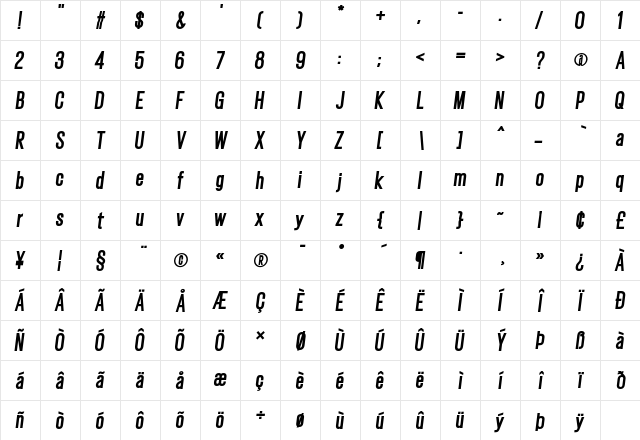
Gatty Extra Bold Italic
| Foundry | Matt Chansky |
| Designer | Matt Chansky |
Design Context for Gatty Typeface
Gatty takes a measured approach to typography — its balanced proportions and neutral character make it a reliable workhorse for both digital and print work. The dynamic lean of this cut emphasises speed and emphasis in any layout. Its bold stroke weight gives it real presence on the page.
Pro Tip: Try Gatty for annotation and caption copy alongside an upright companion — the contrast in angle creates a dynamic but ordered typographic system.